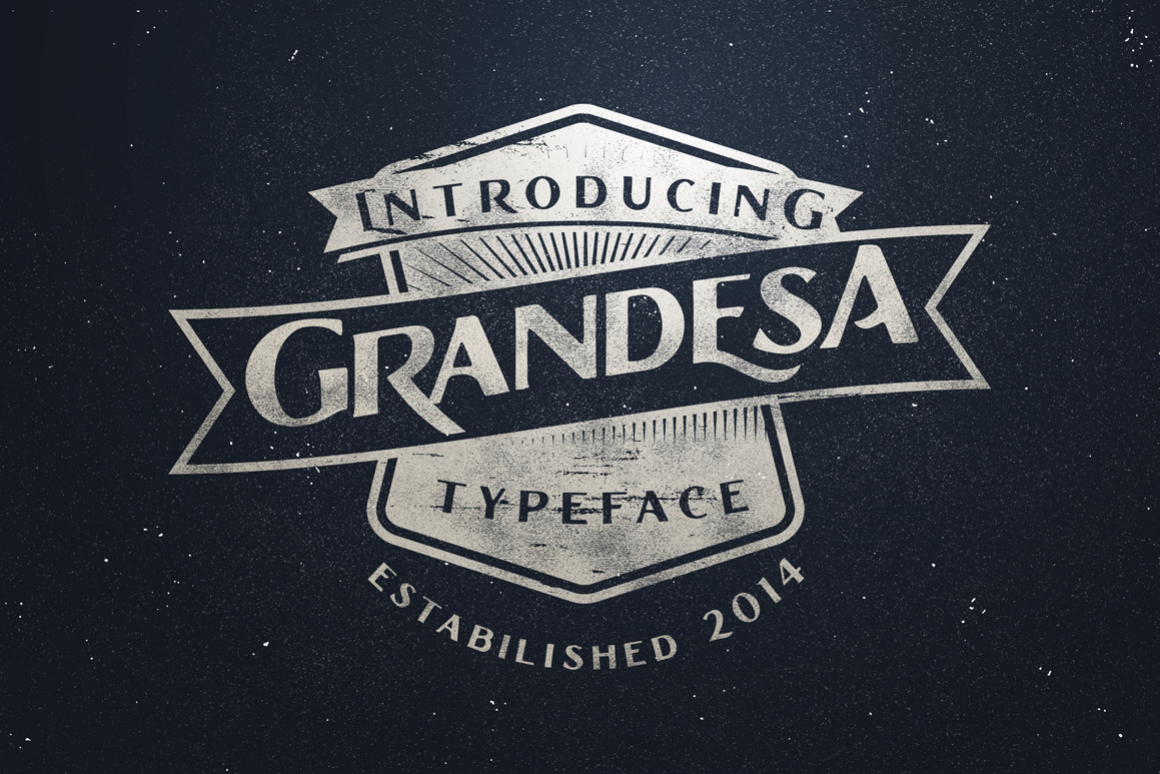
Grandesa
Grandesa-Handrawn
Introducing the new Grandesa Typeface, another handmade display serif font and also I recreating refined version of this.
This font is OpenType features with Stylistic Alternates and Contextual Alternate in some characters that allows you to mix and match pairs of letters to fit your design.
Grandesa Handrawn font good for vintage design, Classic design. and Grandesa refined is looks elegant and looks expensive with the touch of vintage. Both of then is good for t-shirt, logo, labels, posters and etcWhats Inside :